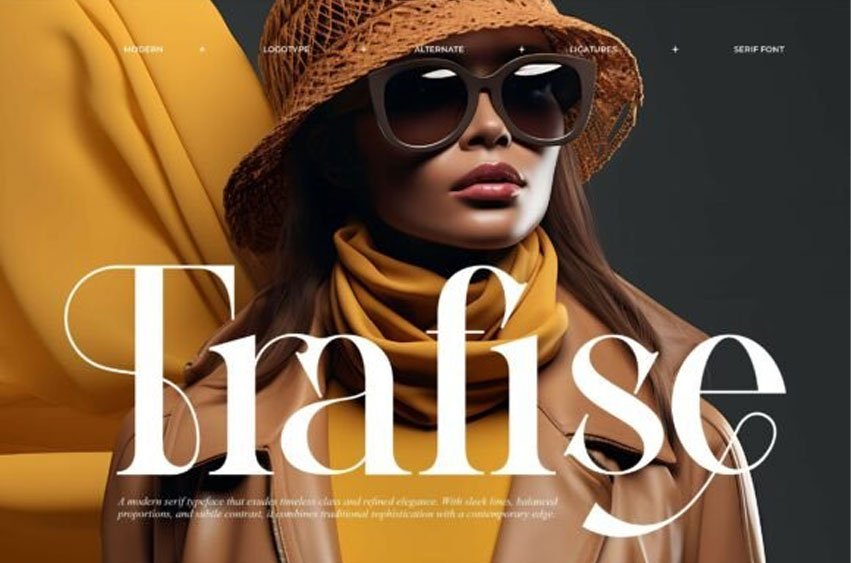
Trafise Font
Trafise Font is a Modern serif font. Trafise typeface captures a perfect harmony between classical refinement and contemporary innovation, making it a standout choice for sophisticated design. Its sleek high-contrast strokes, elongated serifs, and elegant curves give each character a sense of fluidity while maintaining sharp precision.
The font introduces graceful alternates and stylish ligatures that enhance its versatility, allowing designers to create both timeless editorials and fashion-forward branding.
With its balanced proportions and dramatic flair, Trafise exudes luxury and poise, making it ideal for logos, magazines, packaging, and high-end advertising where elegance must meet modernity in every detail.